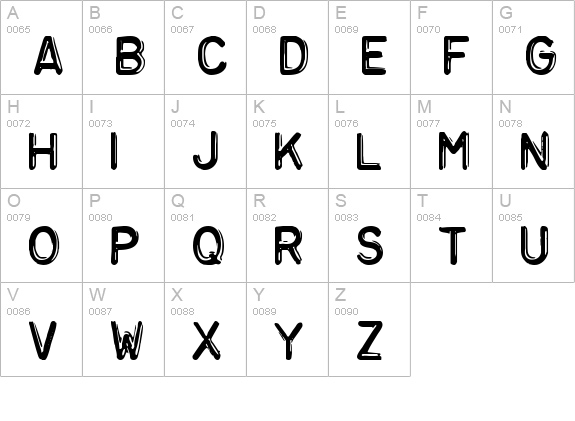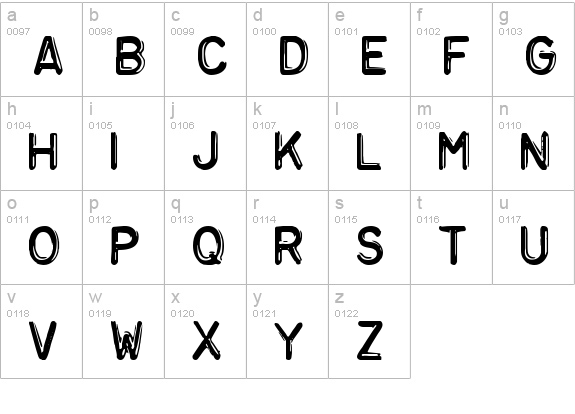
Embark on a journey through the tactile realms of typography with the captivating Embossing Tape 3 (BRK) font. This unique typeface exudes a sense of depth and dimension, making each character appear as if it has been meticulously embossed onto a surface. The bold and striking design of Embossing Tape 3 (BRK) adds a touch of sophistication to any project, whether it be a logo, poster, or branding materials. What's even more exciting is that this exceptional font is available for free download at FontsMarket.com. Yes, you read that right - you can elevate your designs with the mesmerizing Embossing Tape 3 (BRK) font without spending a dime. So why wait? Unleash your creativity and enhance your visual creations with this stunning typeface today!